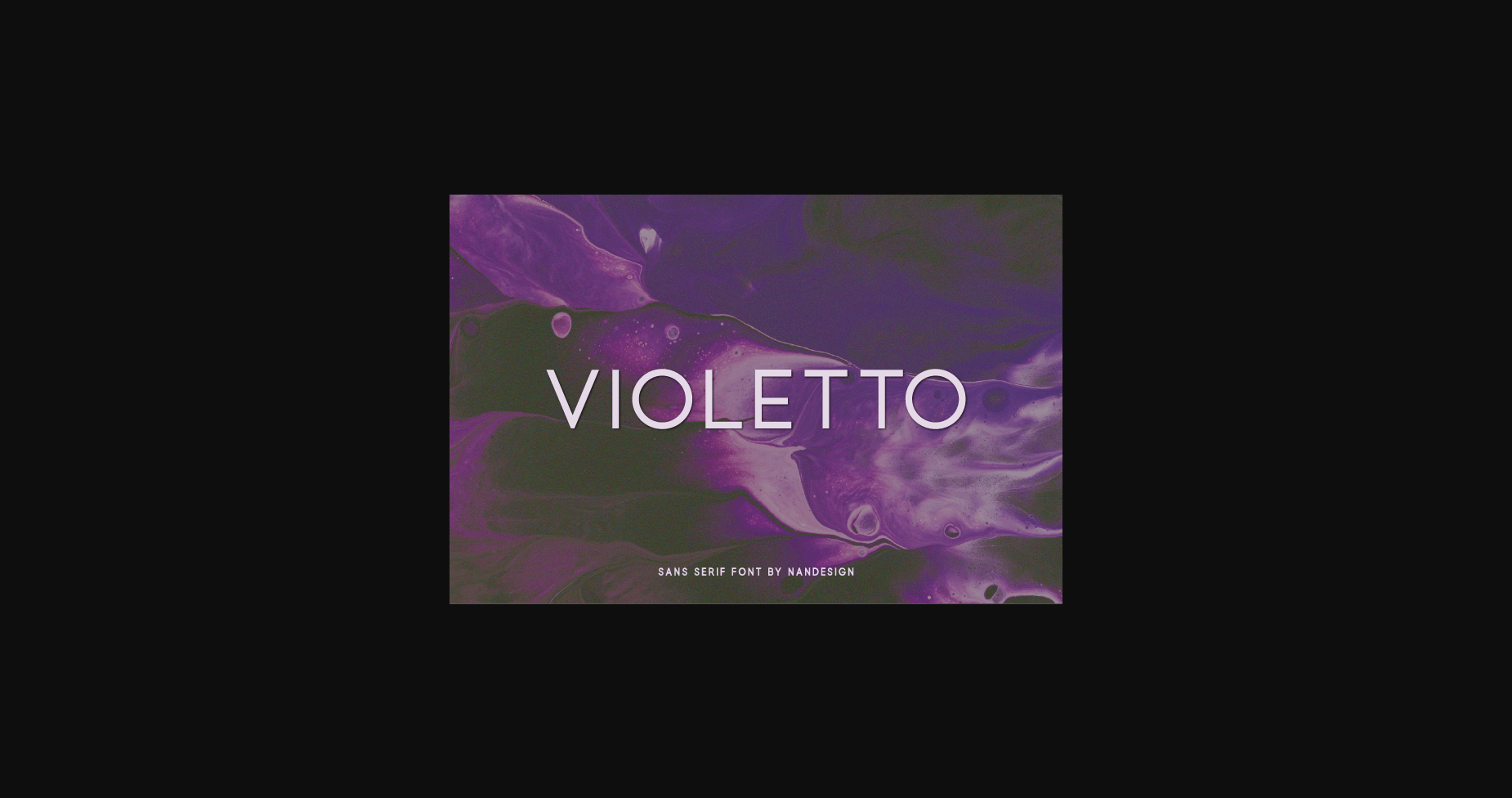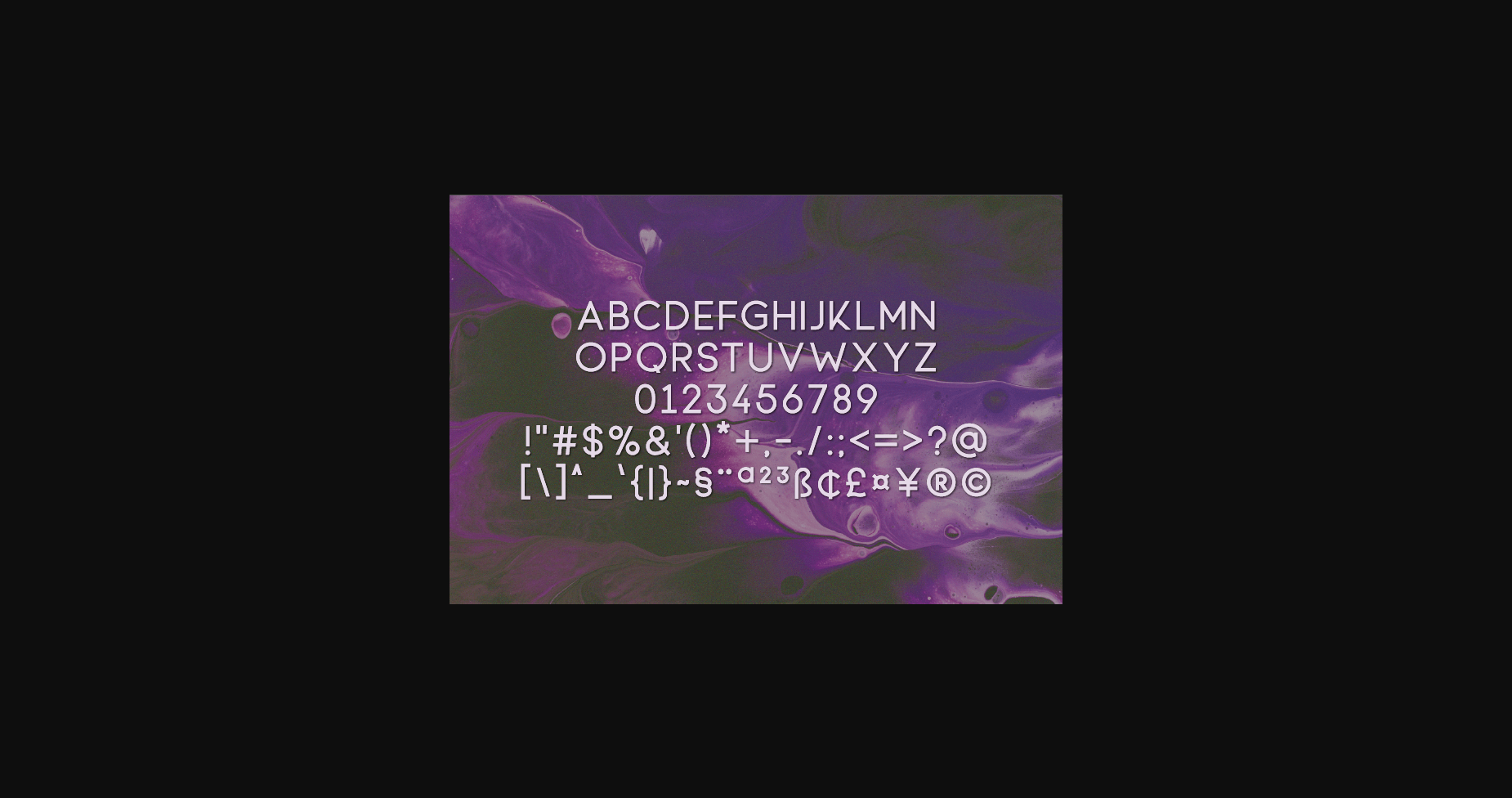
HomeSans Serif FontsVioletto Font Sans Serif Fonts Violetto Font FacebookXPinterestWhatsApp 1 of 5 ... Violetto Font Poster 2... Violetto Font Poster 3... Violetto Font Poster 4... Violetto Font Poster 5... About Violetto Font Violetto is a stunning sans serif to complement every project you’re working on. Use to create beautiful headings, gorgeous invitations, stunning logos, and so much more! DOWNLOAD NOW People also explored Fatsy Zlatan Bold Font Manika Font Model Arpona Sans MultiType Lines Ample Bold Font Teenage Replica Font Bronttwen Montesa Font Clabrush Font 290 0 TagsVioletto Font Previous articleMonoprice FontNext articleCavalier Font LEAVE A REPLY Cancel reply Comment: Please enter your comment! Name:* Please enter your name here Email:* You have entered an incorrect email address! Please enter your email address here Website: Save my name, email, and website in this browser for the next time I comment. Personal Use Free Fifteenth Century Personal Use Free Read more about this font Hallo Betty Personal Use Free Read more about this font Wildwest Personal Use Free Read more about this font Stone Garden Personal Use Free Read more about this font BLOG How to Install and Use Fonts on Windows, macOS, and Web Projects How to Install and Use Fonts on Windows, macOS, and Web Projects Fonts are a crucial part of design and branding. Whether you’re designing a... Modern Sans-Serif Fonts That Brands Love in 2025 Exploring Font Trends How to Cut Any Font on Cricut: Convert a Font to SVG (Free)